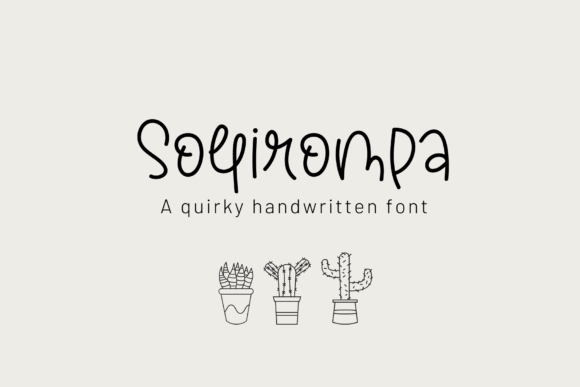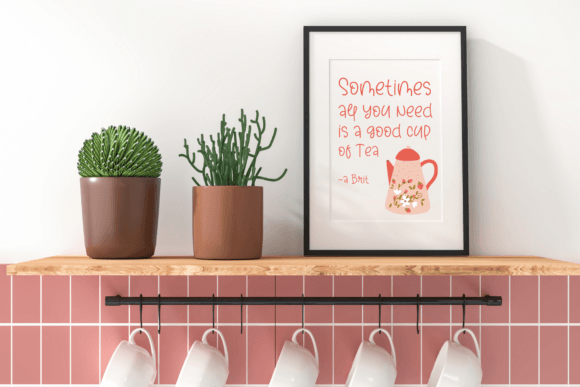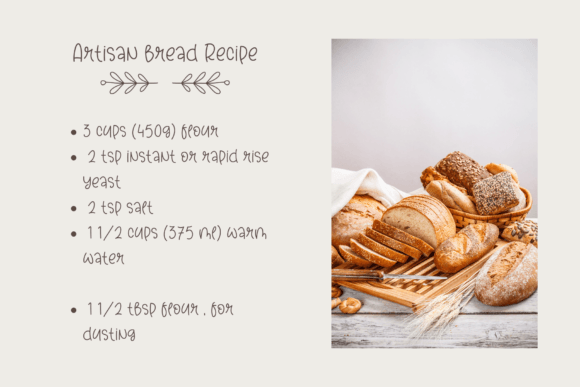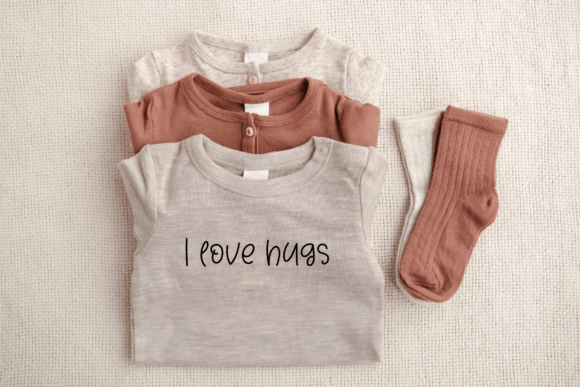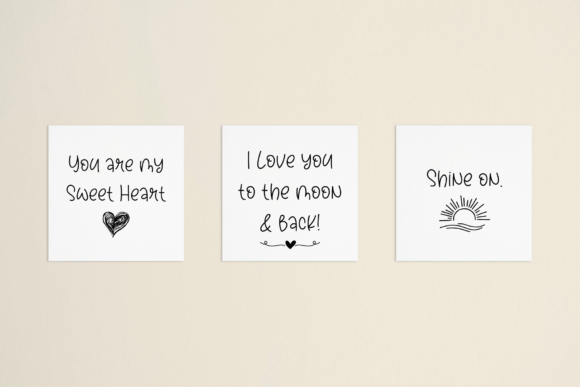
About Sollirompa Font
Sollirompa is a fun and quirky handwritten font. Use Sollirompa to create a cute and playful look for your logos, branding, notebooks, journals, labels, stickers, blogs, quotes, greeting cards, tea towels, apparel, pillows, mugs, toys, posters, baby clothing, picture books and so much more… basically, anything that requires a fun and happy look.